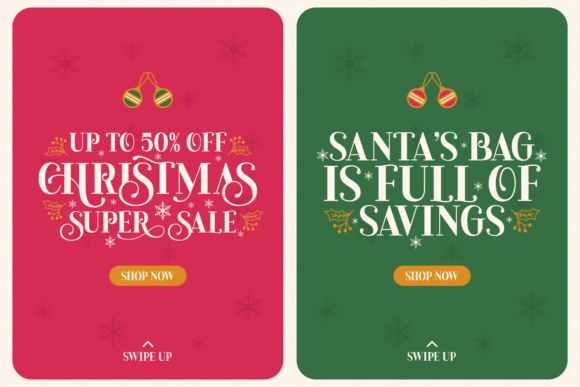
Amour Christmas Font: Elevate Your Holiday Creations with Elegance and Whimsy
The holiday season is upon us, and with it comes the desire to create festive and captivating content that spreads cheer and joy. Whether you’re designing Christmas cards, branding materials, social media posts, or seasonal packaging, the right typography can make all the difference. Introducing the Amour Christmas font, a stunning display serif font that combines elegance and whimsy to bring a touch of magic to your holiday creations.
A Festive and Elegant Display Serif Font
Amour Christmas is a thoughtfully designed font that embodies the spirit of the holiday season. Its luxurious serif base provides a classic and sophisticated foundation, while whimsical swashes and playful ornaments add a dash of festive flair. This unique blend of elegance and cheerfulness makes Amour Christmas the perfect choice for anyone looking to create holiday content that stands out.
Key Features of Amour Christmas Font
- Whimsical Swashes: Add a touch of playfulness to your designs with beautifully crafted swashes that can be used to create stunning title cards, headings, and more.
- Playful Ornaments: Bring joy and festivity to your creations with an assortment of ornaments that can be used to add a decorative touch to your designs.
- Luxurious Serif Base: The elegant serif base of Amour Christmas provides a sophisticated foundation for your designs, perfect for creating high-end holiday content.
- PUA-Encoded: The Amour Christmas font is PUA-encoded, ensuring effortless access to all glyphs, swashes, and alternate characters, making it easy to customize your creations.
Perfect for Holiday Creations
Amour Christmas is a versatile font that can be used for a wide range of holiday projects, including:
Use Cases for Amour Christmas Font
- Christmas Cards: Create stunning holiday cards that will leave a lasting impression on your loved ones.
- Branding: Elevate your holiday branding with a font that exudes elegance and festivity.
- Social Media Posts: Add a touch of holiday cheer to your social media posts and make them stand out in a crowded feed.
- Seasonal Packaging: Create eye-catching packaging that will make your products shine during the holiday season.
Why Choose Amour Christmas Font?
With so many fonts available, why choose Amour Christmas? Here are just a few reasons why this font stands out:
Why Amour Christmas Stands Out
- Unique Blend of Elegance and Whimsy: Amour Christmas combines the best of both worlds, providing a font that’s both sophisticated and playful.
- Highly Customizable: With PUA encoding and a range of glyphs, swashes, and alternate characters, you can easily customize Amour Christmas to suit your design needs.
- Perfect for Holiday Season: Amour Christmas is specifically designed for the holiday season, making it the perfect choice for creating festive and captivating content.
Tips for Using Amour Christmas Font
To get the most out of Amour Christmas, here are a few tips to keep in mind:
Tips for Using Amour Christmas
- Experiment with Swashes and Ornaments: Don’t be afraid to get creative with the swashes and ornaments to add a unique touch to your designs.
- Mix and Match with Other Fonts: Combine Amour Christmas with other fonts to create a unique and eye-catching design.
- Pay Attention to Kerning and Spacing: Make sure to adjust the kerning and spacing to ensure your text looks professional and polished.
Amour Christmas font is a stunning display serif font that’s perfect for adding a touch of elegance and whimsy to your holiday creations. With its luxurious serif base, whimsical swashes, and playful ornaments, this font is sure to bring joy and festivity to your designs. Whether you’re creating Christmas cards, branding materials, social media posts, or seasonal packaging, Amour Christmas is the perfect choice. So why wait? Download Amour Christmas today and make your holiday content shine!